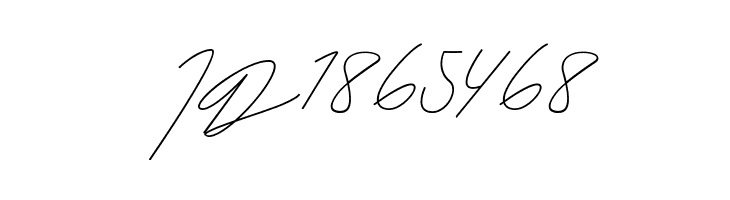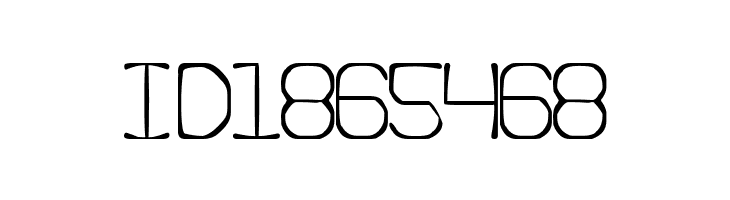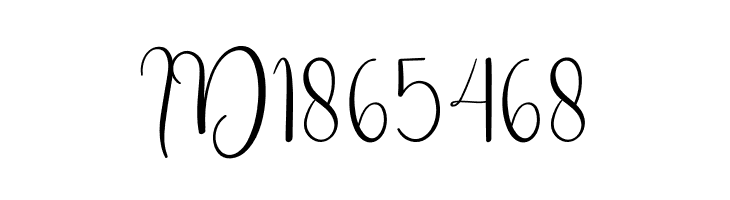
Thin, cursive handwritten script with connected, flowing letters.
Light, whimsical handwritten script with tall, airy letterforms.
Hand-drawn geometric sans-serif with a futuristic, informal style.
Playful handwritten script with tall loops and a casual, whimsical style.